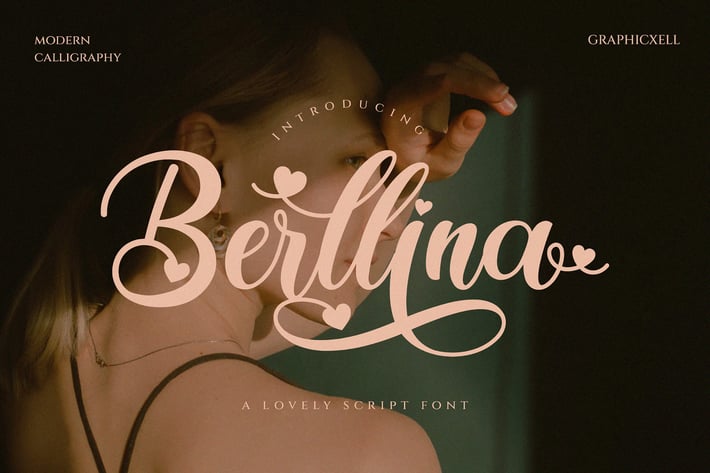
Berllina - Script Font
Berllina is an elegant modern script font designed to bring a chic and sophisticated look to your creative projects. Its smooth and flowing strokes create a stylish, handwritten feel that works well for branding, invitations, logos, and social media posts. Whether you want to add charm to your designs or create eye-catching headlines, Berllina offers a fresh and graceful style.
Key features include:
- Smooth, flowing script with natural curves
- High readability for both print and digital use
- Works perfectly for branding, packaging, and invitations
- Supports multiple languages for global projects
- Ideal for wedding cards, logos, social media, and editorial design
Berllina combines classic script beauty with a modern touch. It balances elegance with clarity, allowing your text to stand out while remaining easy to read. Additionally, this font pairs well with simple sans serif fonts, helping you build stylish and balanced layouts.
Moreover, Berllina adapts beautifully to different sizes and formats. Whether on large banners or small labels, the font keeps its charm and legibility. It works well across various platforms, ensuring your designs always look professional.
Furthermore, this font helps streamline the creative process. Because of its versatility, it fits both formal and casual projects. You can use it for personal branding or commercial designs, making it a flexible choice for many creators.
In summary, Berllina is a stylish script font that adds a modern yet elegant flair to your designs. Its smooth strokes and readable style make it perfect for designers who want a fresh and professional look. Try Berllina today and elevate your branding, invitations, and creative projects.
Key features include:
- Smooth, flowing script with natural curves
- High readability for both print and digital use
- Works perfectly for branding, packaging, and invitations
- Supports multiple languages for global projects
- Ideal for wedding cards, logos, social media, and editorial design
Berllina combines classic script beauty with a modern touch. It balances elegance with clarity, allowing your text to stand out while remaining easy to read. Additionally, this font pairs well with simple sans serif fonts, helping you build stylish and balanced layouts.
Moreover, Berllina adapts beautifully to different sizes and formats. Whether on large banners or small labels, the font keeps its charm and legibility. It works well across various platforms, ensuring your designs always look professional.
Furthermore, this font helps streamline the creative process. Because of its versatility, it fits both formal and casual projects. You can use it for personal branding or commercial designs, making it a flexible choice for many creators.
In summary, Berllina is a stylish script font that adds a modern yet elegant flair to your designs. Its smooth strokes and readable style make it perfect for designers who want a fresh and professional look. Try Berllina today and elevate your branding, invitations, and creative projects.